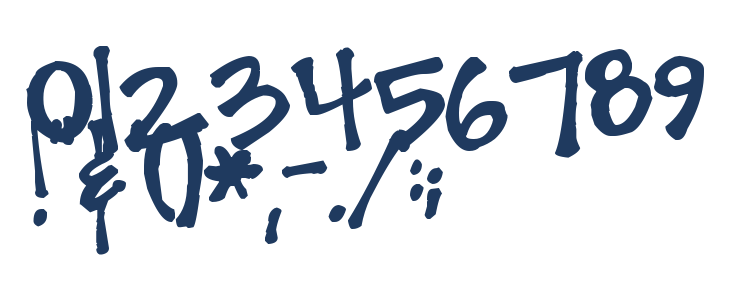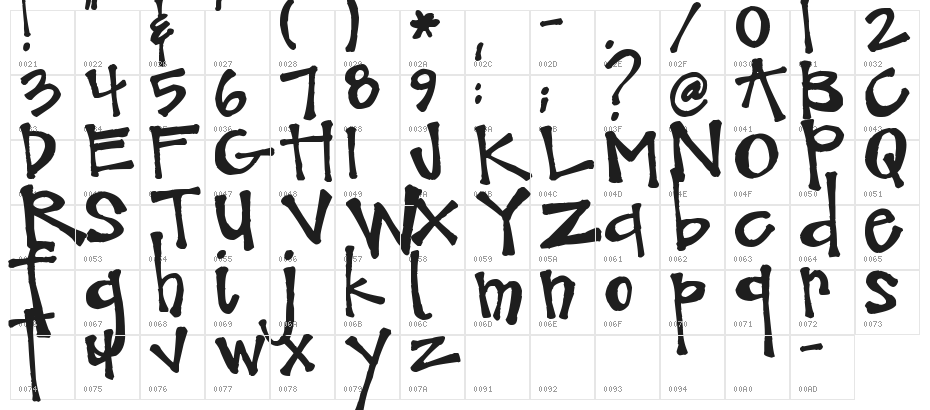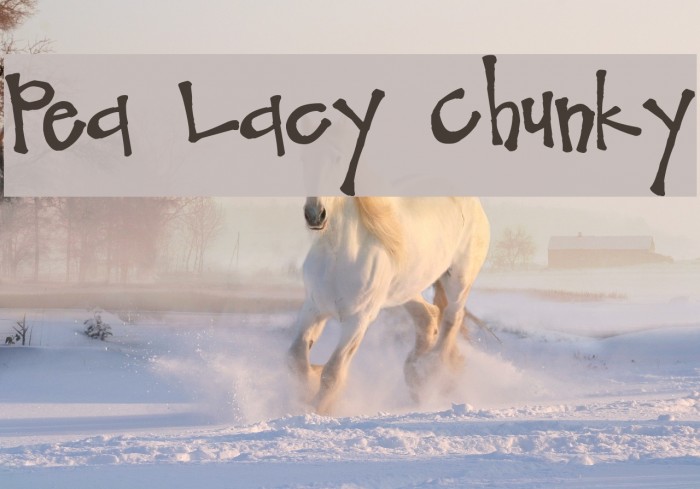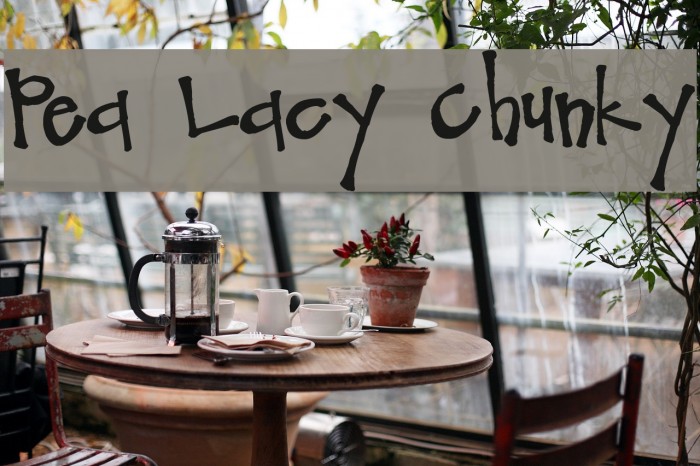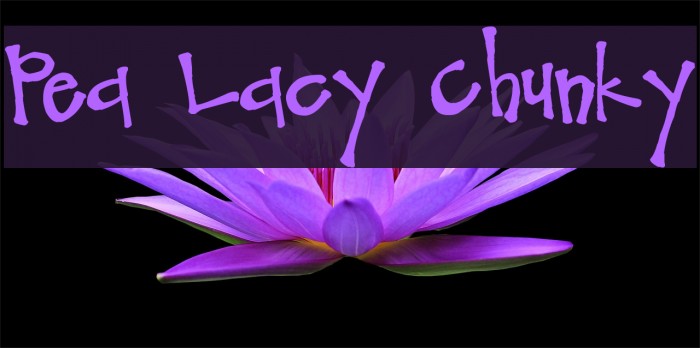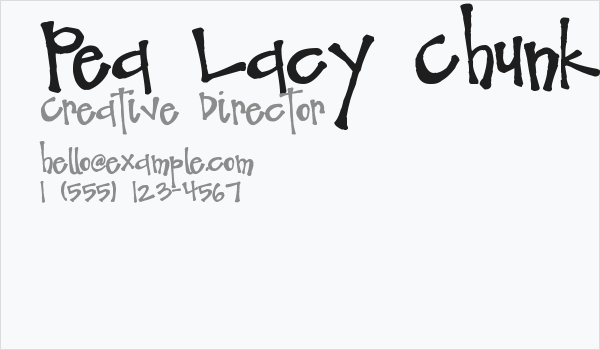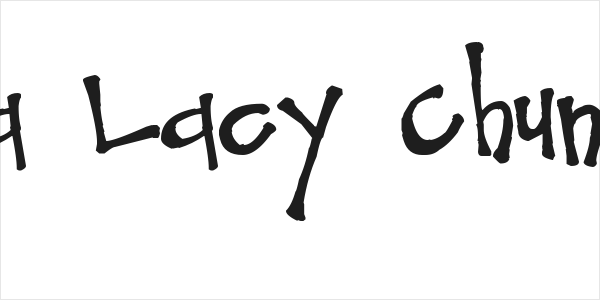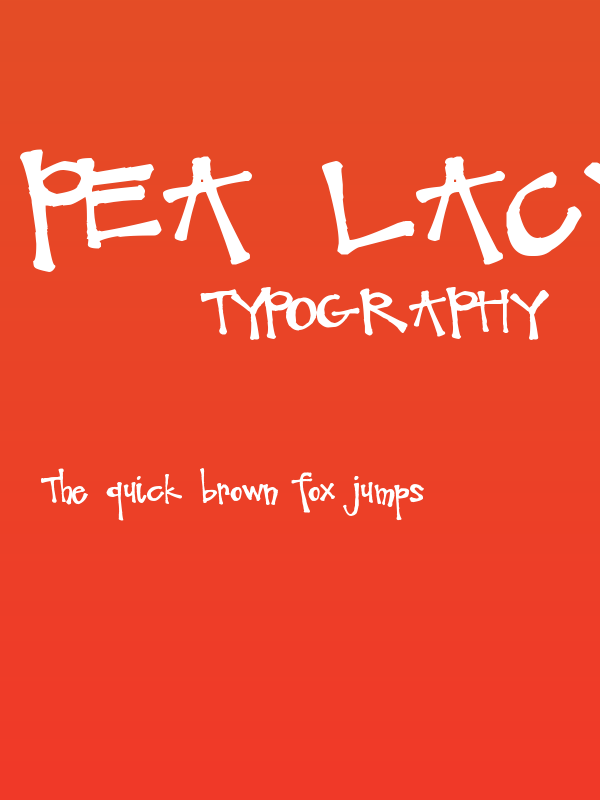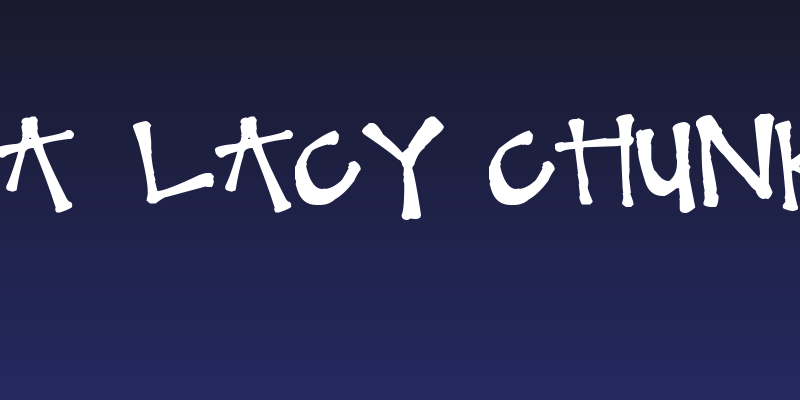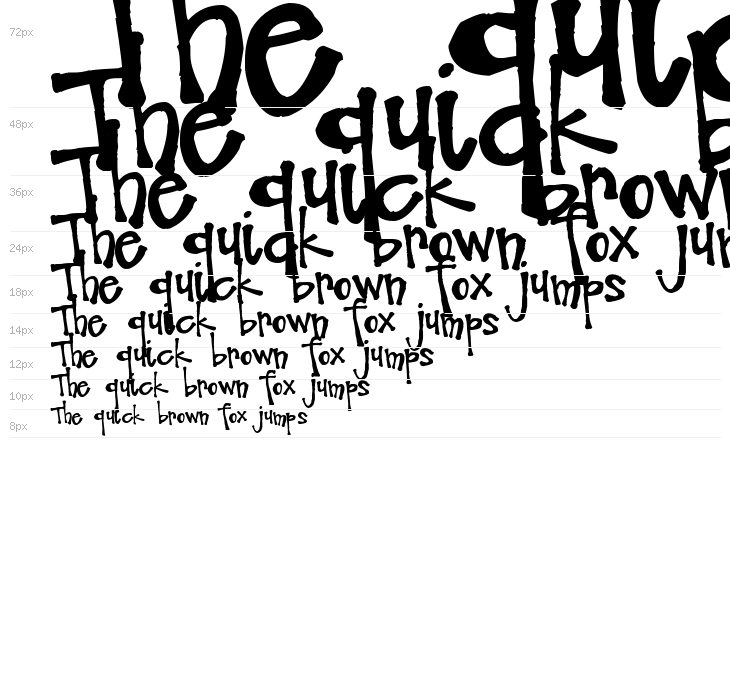
Pea Lacy Chunky Font
Pea Lacy Chunky Description
This font features a playful and chunky handwritten style, characterized by its bold and uneven strokes. The letters have a casual, informal appearance, with a slightly irregular baseline that adds to its charm. The uppercase and lowercase letters are distinct, with the uppercase being more angular and the lowercase more rounded. Numbers and special characters follow the same playful aesthetic, making the font suitable for creative and fun projects. The overall design is energetic and lively, perfect for capturing attention.
| Overall Style | Playful, Casual |